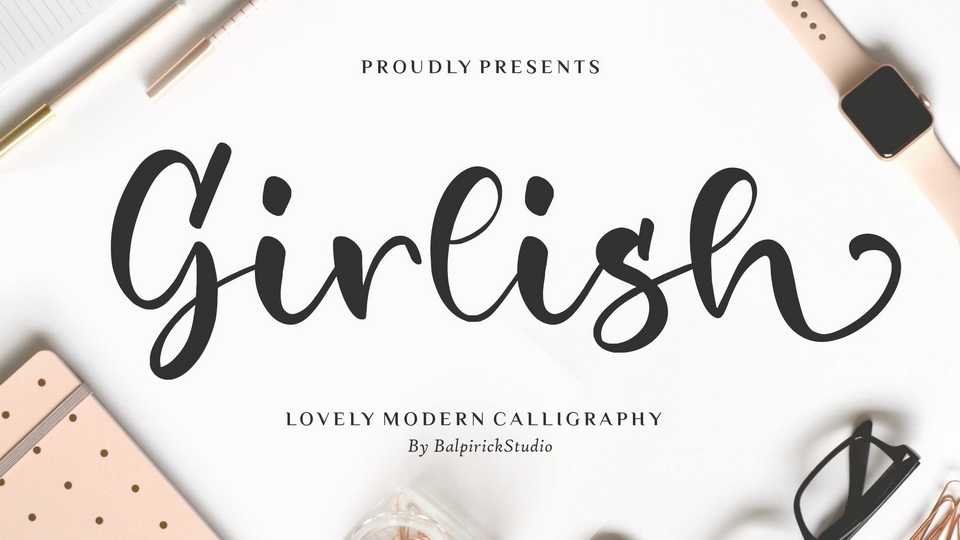
Download Girlish font, a lovely modern calligraphy typeface. Girlish is perfect for branding project, magazine, social media, wedding, or just used to express words above the background.